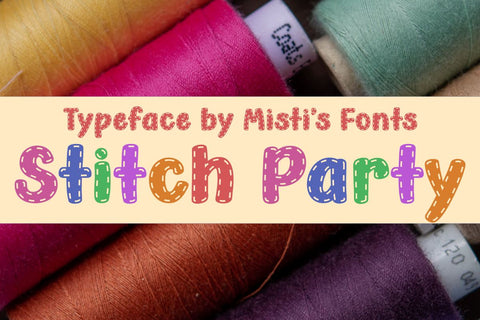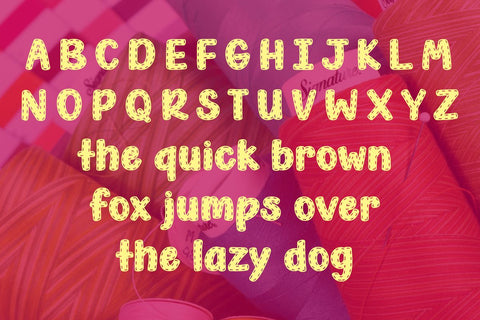
Stitch Party
Introducing Stitch Party, the perfect font to add a touch of playful charm to your designs! Featuring whimsical stitching around the edges of each letter, this fun and vibrant typeface is ideal for crafts, invitations, and any project that needs a burst of creativity. Get stitched up with Stitch Party!